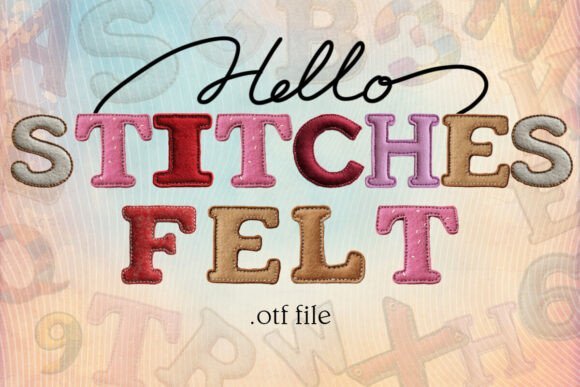
The Magic of the Felt Stitches Font
Do you remember the joy of crafting felt ornaments and decorations during the holiday season? The smell of glue and felt, the sound of scissors cutting through the fabric, and the satisfaction of creating something warm and cozy with your loved ones. This feeling is exactly what the Felt Stitches Alphabet font embodies – a vibrant and colorful canvas of lettering that captures the essence of the holiday season.
As a designer, you’re always on the lookout for unique and versatile fonts that can add a touch of personality to your projects. The Felt Stitches Font is more than just a font – it’s a manifestation of heartwarming holiday creativity that can be used to create a wide range of designs, from greeting cards to posters, and from social media graphics to websites.
Felt Stitches Font Key Features
- Unique Characteristic: The font’s distressed, hand-stitched appearance gives it a unique, artisanal feel, perfect for adding a touch of personality to designs.
- Character Set: Includes a wide range of characters, including uppercase and lowercase letters, numbers, and punctuation marks, making it suitable for various design applications.
Felt Stitches Font Review
I recently had the chance to work with the Felt Stitches font, and I must say, it’s a unique and quirky addition to any design project. ✨ The font’s hand-stitched aesthetic gives it a charming, homespun feel that’s perfect for crafting, DIY, and other projects that require a touch of whimsy.
Here are some of the things that work well with this font:
- ✨ Its unique, hand-stitched look adds a personal touch to designs.
- ✨ It’s available in a range of styles and weights, making it versatile and easy to use.
- ✨ The font is highly customizable, allowing designers to tweak the look and feel to suit their project’s needs.
- ⚠️ The font may not be suitable for projects that require a more formal or professional look.
- ⚠️ The stitching effect can be distracting if used in large blocks of text.
Overall, I think the Felt Stitches font is a great addition to any designer’s toolkit, especially for projects that require a touch of personality and whimsy. While it may not be suitable for every project, it’s a great choice for crafting, DIY, and other creative endeavors.
Tips for Getting the Most Out of the Felt Stitches Font
1. Use the Felt Stitches font for titles and headings to add a touch of whimsy to your design.
2. Pair the Felt Stitches font with other playful fonts to create a unique and eye-catching design.
3. Use the Felt Stitches font for invitations, party decorations, and other festive designs.
The Felt Stitches font is perfect for:
1. Crafting and DIY projects.
2. Children’s book illustrations and designs.
3. Party invitations and decorations.